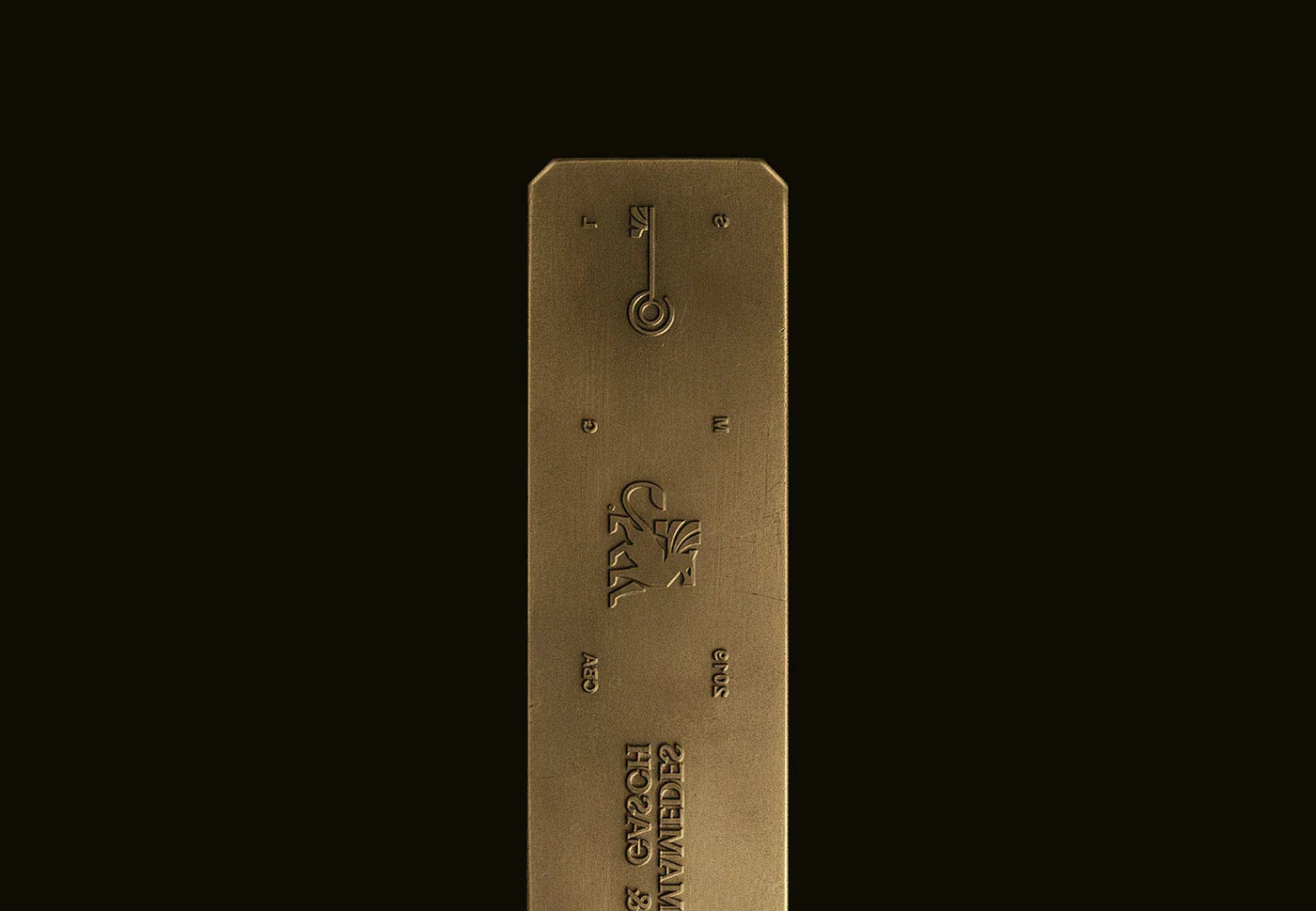
Mamedes & Gasch is a law firm specializing in litigation and legal consulting, focused on procedural efficiency and clear guidance at every stage.
Our communication is objective and accessible, ensuring a clear understanding of timelines, documentation, and next steps, always in strict compliance with professional standards and confidentiality.
Practice areas are presented concisely and informatively: legal consulting and advisory, litigation, health law, business and corporate law, administrative law, civil law, and consumer law.
Our visual identity reflects a serious and precise institutional aesthetic. High-contrast serif typography for headlines, paired with a rational sans-serif for supporting text, creates a straightforward layout with a clear hierarchy. A sober color palette, consisting of deep green-black, earthy bronze, and gray, reinforces legibility and gravitas, conveying professionalism over promotional appeal.
The griffin is the brand’s identifying mark. With solid shapes and sharp cuts, it is applied in seals, monograms, and signatures. Its sole purpose is to identify the firm across print and digital materials.
Photography in our communications reveals the team’s human and approachable side while reinforcing professional seriousness. The result is a unique identity that balances the tradition of law with a contemporary approach.